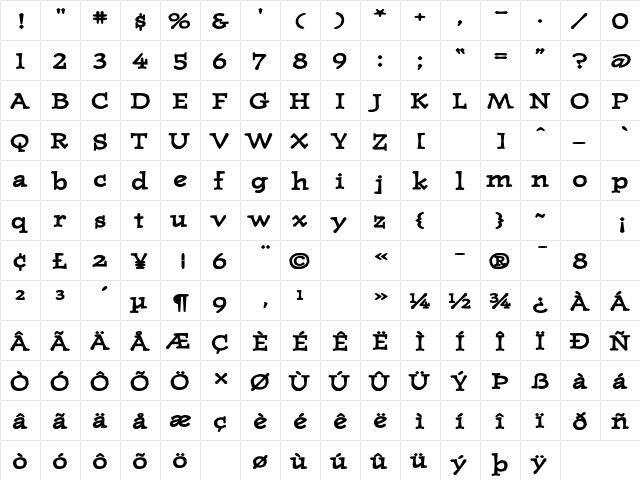
WesternPressExpandedSSK Bold
Design Context for WesternPressExpandedSSK Typeface
WesternPressExpandedSSK taps into classic Western woodtype traditions — bold, characterful, and impossible to ignore. The heavy weight commands attention and anchors typographic hierarchies.
A natural fit for craft spirits, ranch branding, rodeo events, and Americana-inspired design work.
Font Pairing: Combine WesternPressExpandedSSK with a simple slab or neutral sans — period-accurate companions reinforce the vintage feel without competing for attention.
Pro Tip: Use WesternPressExpandedSSK for short, impactful bursts of text — it shines in poster headlines and product names rather than extended copy.